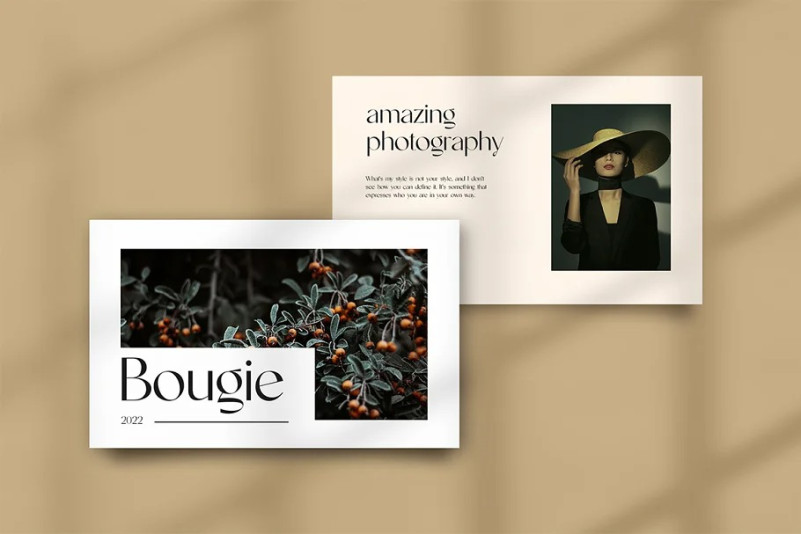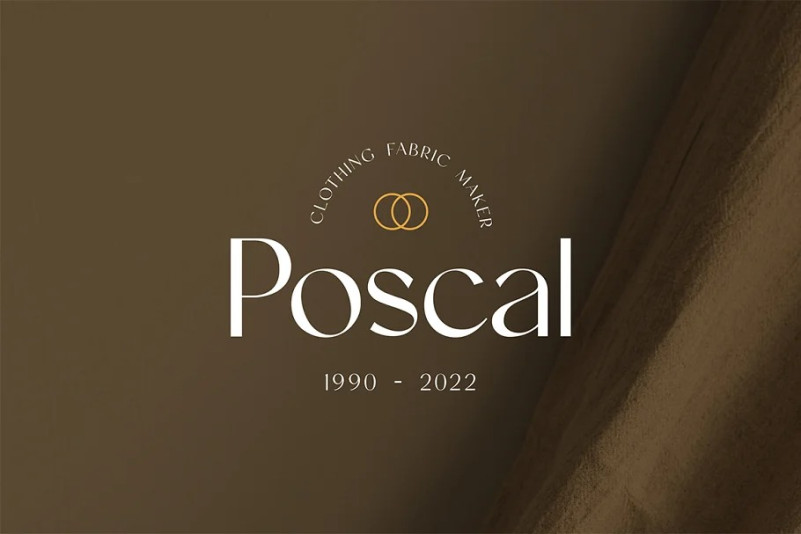
Mightiest Font
Mightiest Font – Sans Serif Font. Modern Serif font that feels beautiful classy, elegant, and modern. This font is perfectly suited for a wide variety of projects, such as signature, stationery, logo, wedding, typography quotes, magazine or book covers, website headers, clothing, branding, packaging design, and more. Also, fashion-related branding or editorial design displays both masculine and feminine qualities.